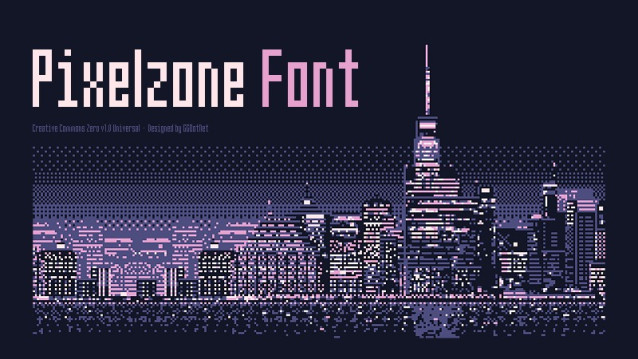
Pixelzone Font
Pixelzone Font is a cool pixel display font, perfect for retro game design themes. Use this captivating font for creating unique t-shirt designs, covers, headlines, posters, or anything that needs a retro accent.